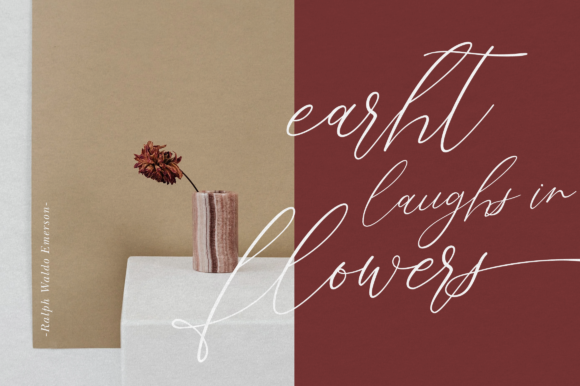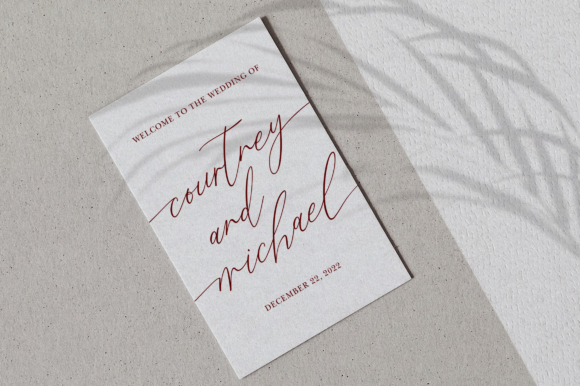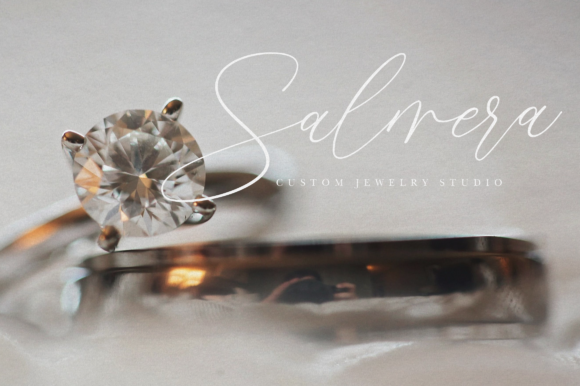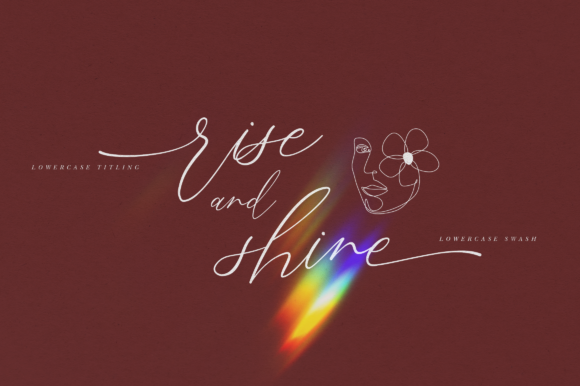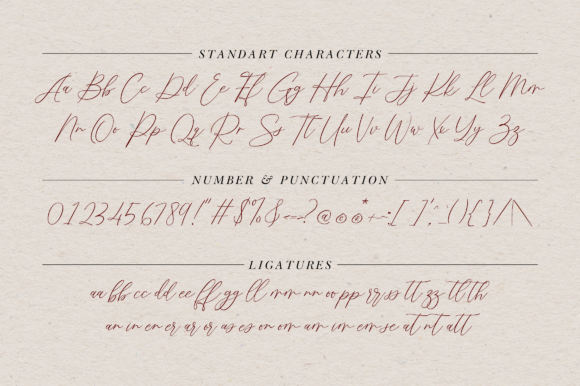
Fistamora Font: Elevate Your Designs with Luxurious Handwritten Style
In the world of typography, fonts play a crucial role in conveying the tone and aesthetic of a design. For designers and crafters seeking to add a touch of luxury and sophistication to their work, Fistamora Font is an exceptional choice. This stunning handwritten font boasts a clean, thin, and smooth vibe that is sure to elevate any design it’s a part of.
The Characteristics of Fistamora Font
Fistamora Font is distinguished by its elegant and refined appearance. Its key characteristics include:
- Clean Lines: The font features clean, well-defined lines that contribute to its sophisticated look.
- Thin Strokes: The thin strokes of Fistamora Font add to its luxurious feel, making it perfect for designs that require a touch of elegance.
- Smooth Flow: The font’s smooth flow ensures that it looks great in both large and small sizes, making it versatile for various design applications.
Why Choose Fistamora Font?
There are numerous reasons why designers and crafters might choose Fistamora Font for their projects:
- Versatility: Fistamora Font can be used in a wide range of design projects, from branding and advertising to packaging and digital media.
- Elegance: The font’s luxurious feel makes it an excellent choice for designers looking to add a touch of sophistication to their work.
- Readability: Despite its thin strokes, Fistamora Font remains highly readable, ensuring that your message is communicated effectively.
- Uniqueness: In a sea of generic fonts, Fistamora Font stands out for its unique and distinctive style, allowing your designs to grab attention.
Using Fistamora Font in Design Projects
Integrating Fistamora Font into your design projects is straightforward. Here are some tips to make the most of this beautiful font:
- Pair with Complementary Fonts: For maximum impact, pair Fistamora Font with fonts that complement its style. A combination of a luxurious script font like Fistamora with a clean sans-serif font can create a visually appealing contrast.
- Adjust Line Spacing: To maintain readability, especially in longer texts, adjust the line spacing to ensure that the text flows smoothly.
- Experiment with Colors: Fistamora Font looks great in a variety of colors. Experiment with different hues to find the one that best suits your design’s mood and purpose.
Who Can Benefit from Fistamora Font?
Fistamora Font is a valuable asset for a wide range of professionals and creatives, including:
- Graphic Designers: Looking for a luxurious font to elevate their branding and advertising projects.
- Digital Artists: Seeking unique and elegant typography for their digital art.
- Crafters: Creating handmade products that require custom, personalized typography.
- Web Designers: Needing a sophisticated font for websites that demand a high-end look.
Fistamora Font is more than just a typeface; it’s a design element that can transform your projects with its luxurious handwritten style. Its clean, thin, and smooth characteristics make it an excellent choice for designers and crafters aiming to add a touch of elegance and sophistication to their work. Whether you’re working on a branding project, creating digital art, or crafting handmade products, Fistamora Font is sure to make a lasting impression.